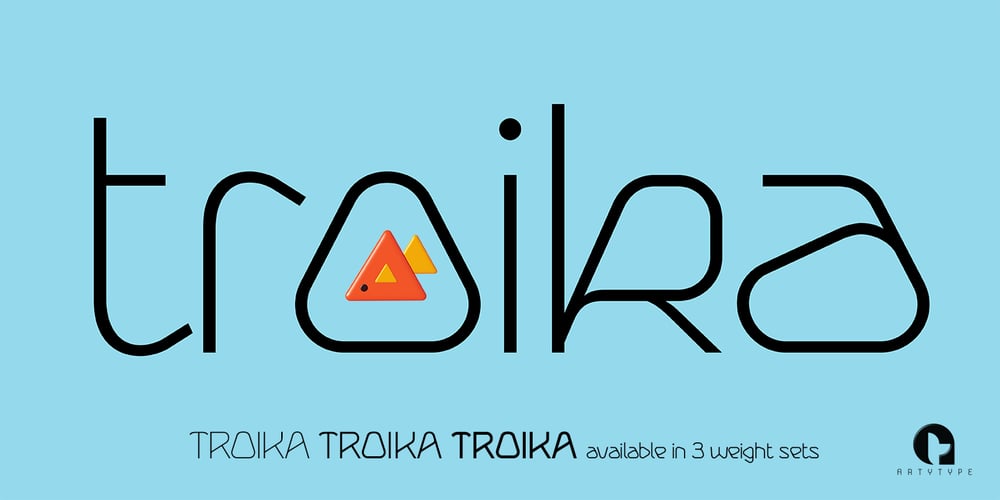
Troika
Troika font
Troika Font Family was designed by James Marsh and published by ArtyType. Troika contains 3 styles and family package options. Naming this typeface Troika, the Russian word meaning “group of three”, seemed apt because the starting point in this design process was a three sided letter ‘O’. This triangular type styling became a template guide for the rest of the character set. Troika is a highly distinctive, ultra modern typeface with idiosyncratic letterforms that make for striking headlines, particularly at large display sizes. Challenging, futuristic and experimental, always unique, and with caps as characterful as the lower case. Troika being derived from the French ‘Triangle’ and the Latin ‘Triangulus’ it seemed only fitting to design three weights: Light, Medium & Bold.